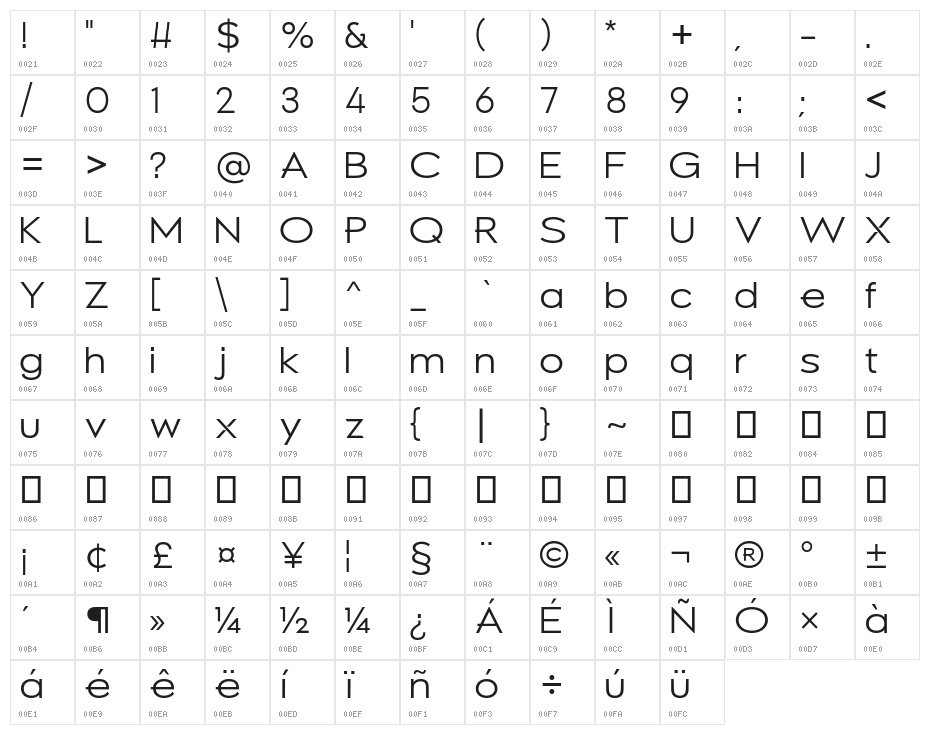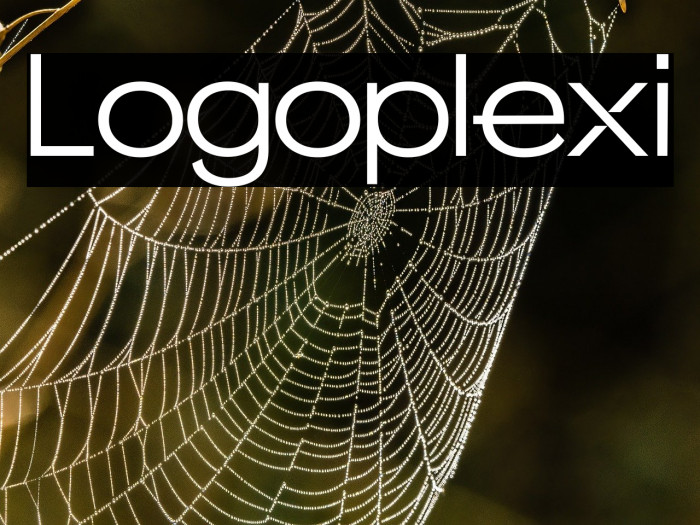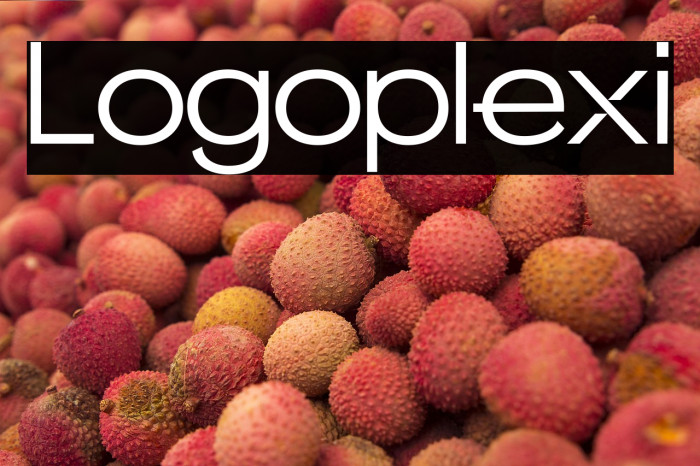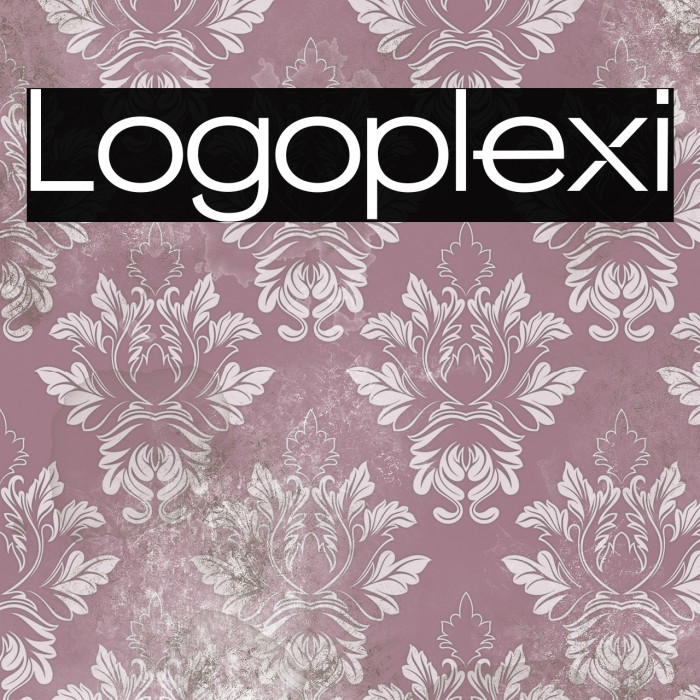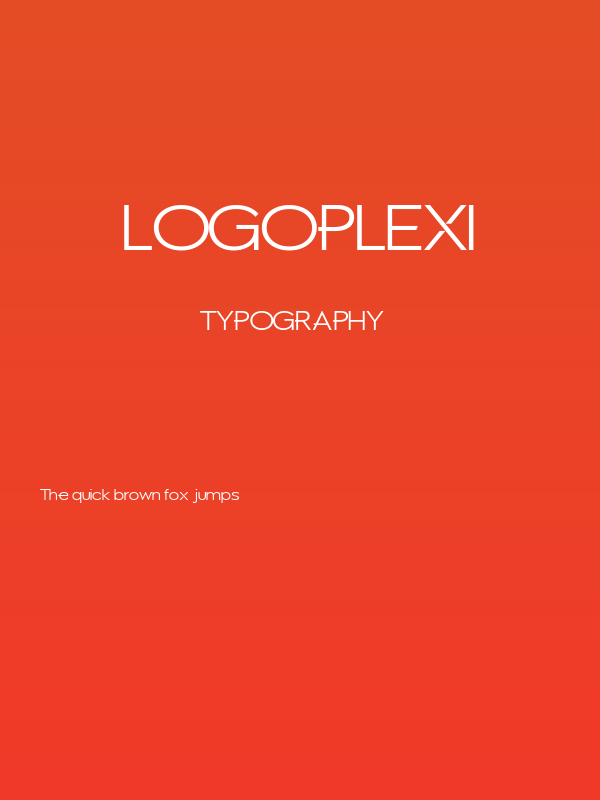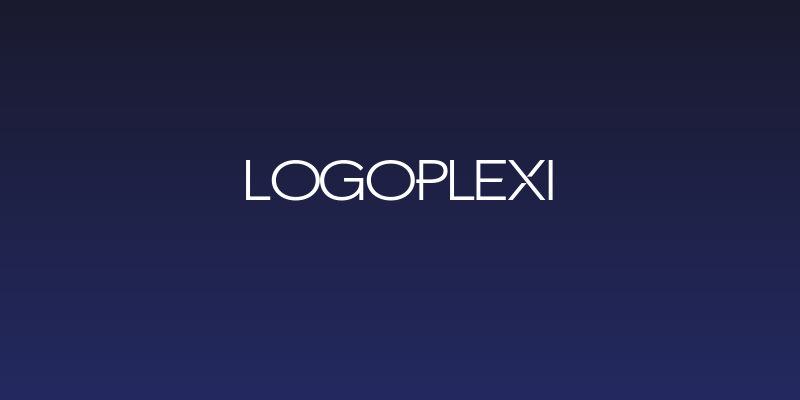
Logoplexi Font
Logoplexi Description
This font features a clean, geometric design with a modern aesthetic. The characters are crafted with uniform stroke widths, giving it a sleek and contemporary look. The uppercase letters are bold and assertive, while the lowercase letters maintain a consistent style with rounded edges that add a touch of softness. The numerals are clear and legible, making them suitable for various applications. Special characters are designed with the same attention to detail, ensuring a cohesive appearance across all glyphs. The overall design is versatile, making it suitable for both digital and print media.
| Proposed Projects | Ideal for branding, logos, web design, and editorial layouts. |